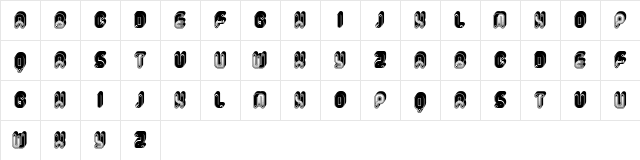
Allora Regular
Complete Allora Regular glyph index. Displaying only characters natively supported by Allora Regular font.
Design Context for Allora
Allora is a composed and adaptable typeface that performs quietly and consistently across a wide range of design contexts.